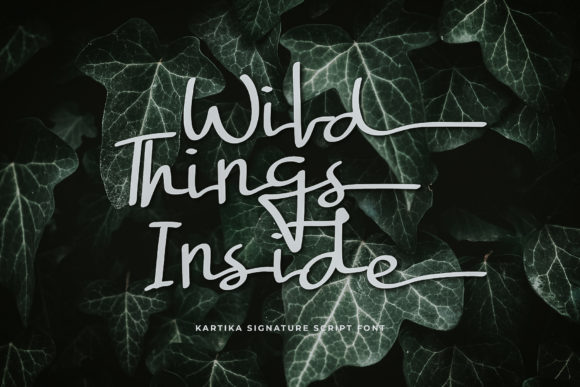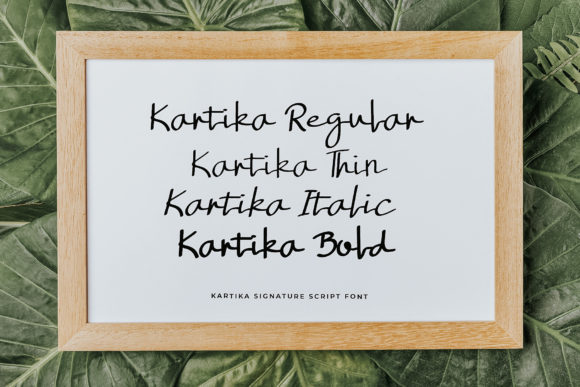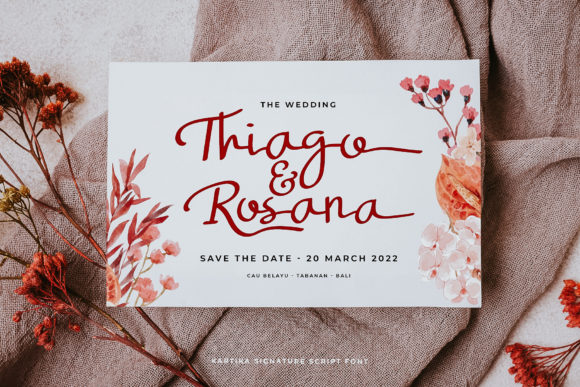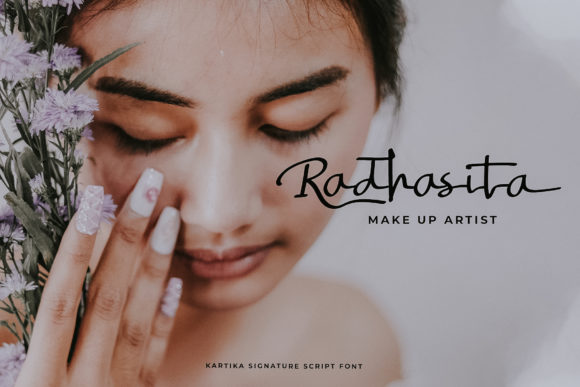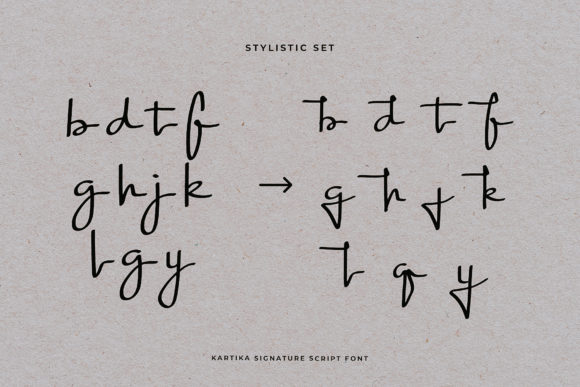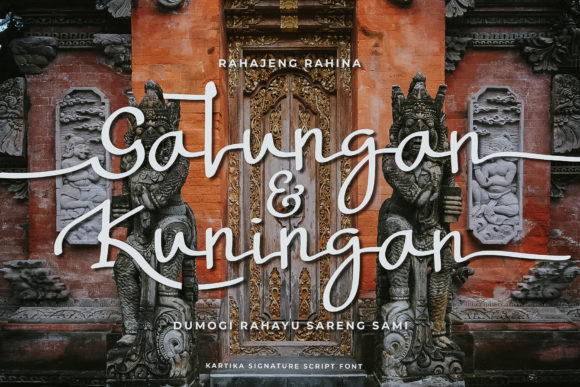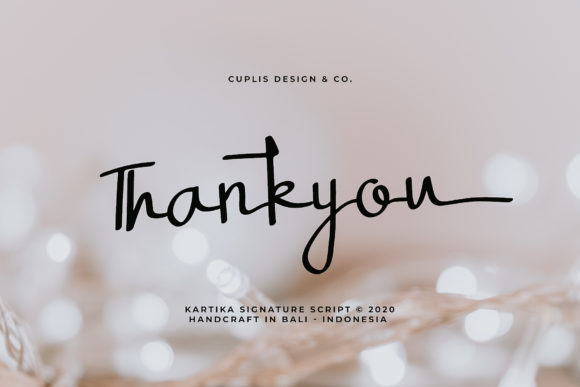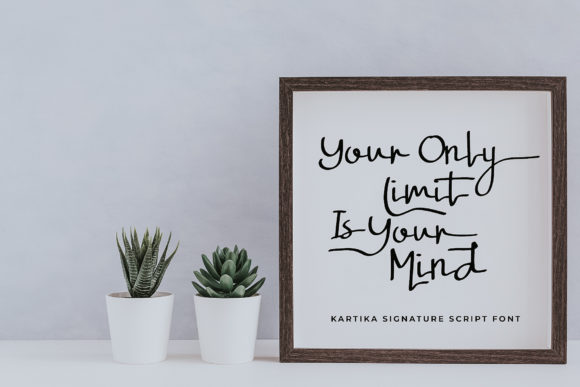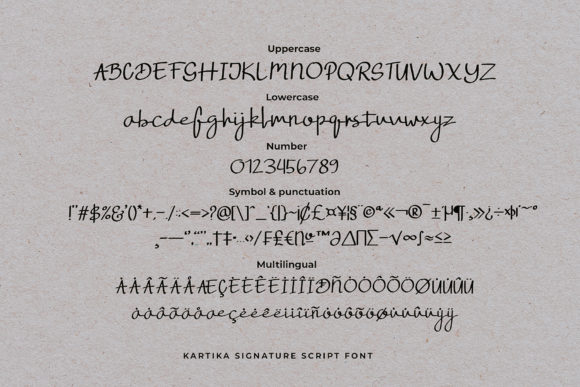
Kartika Font
About Kartika Font
Kartika is a sweet and friendly handwritten font. Its natural and unique style makes it incredibly fitting to a large pool of designs. This font is PUA encoded which means you can access all of the glyphs and swashes with ease!